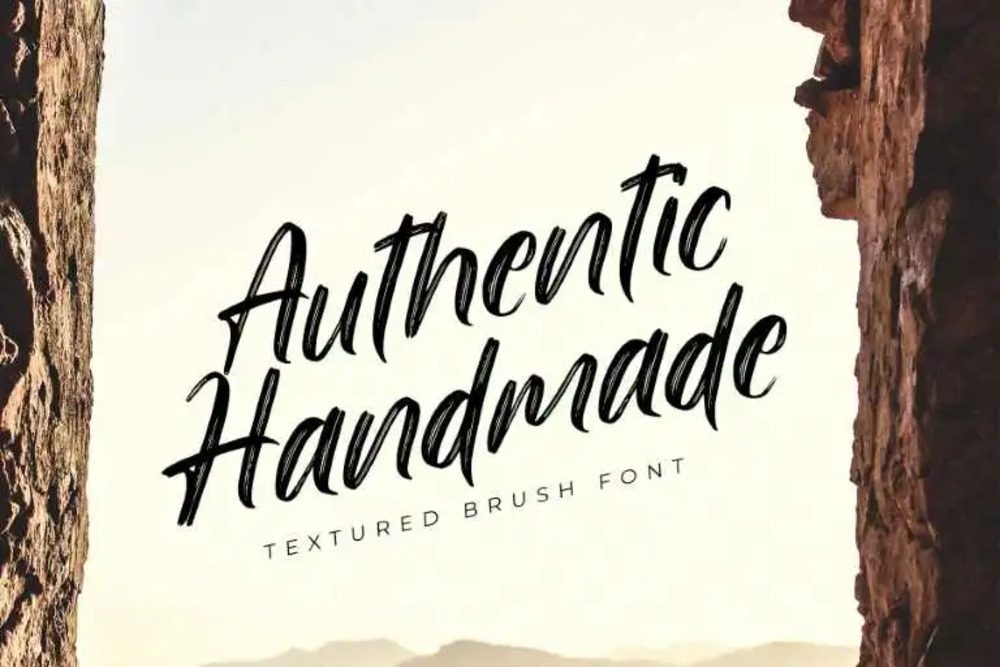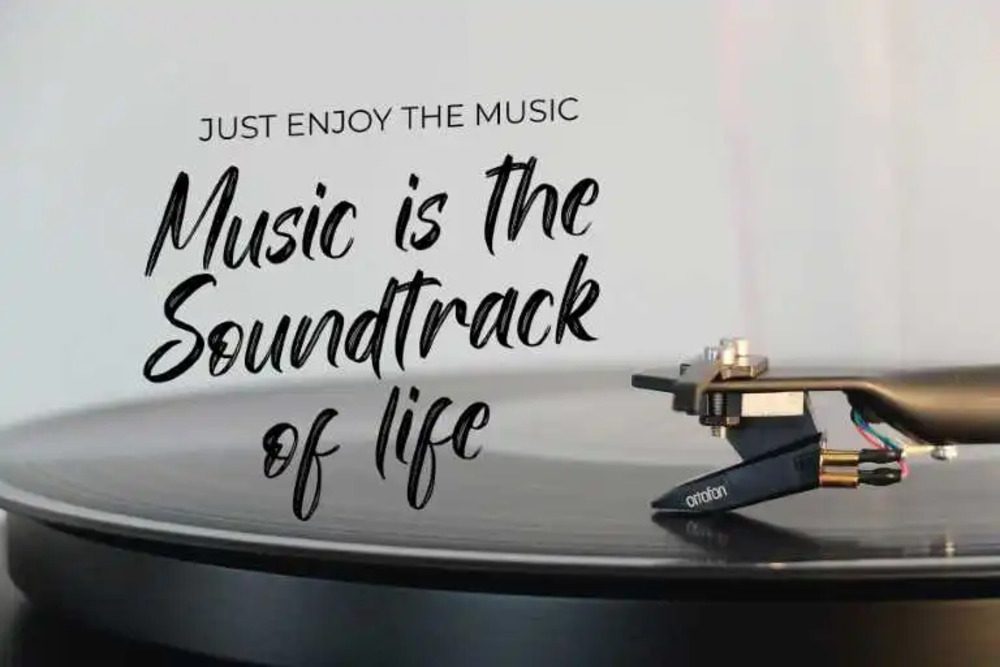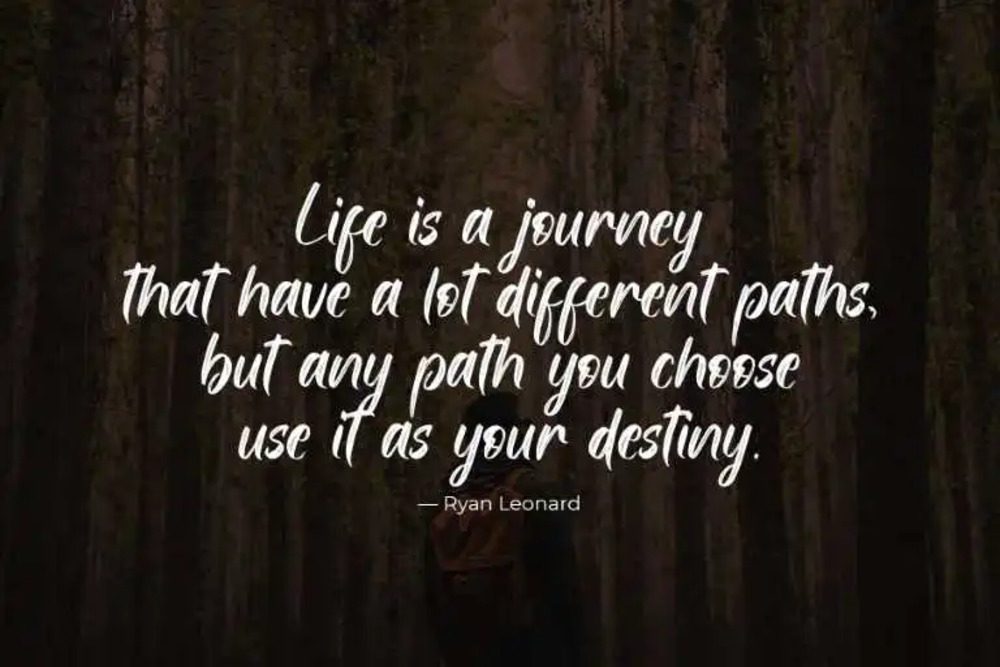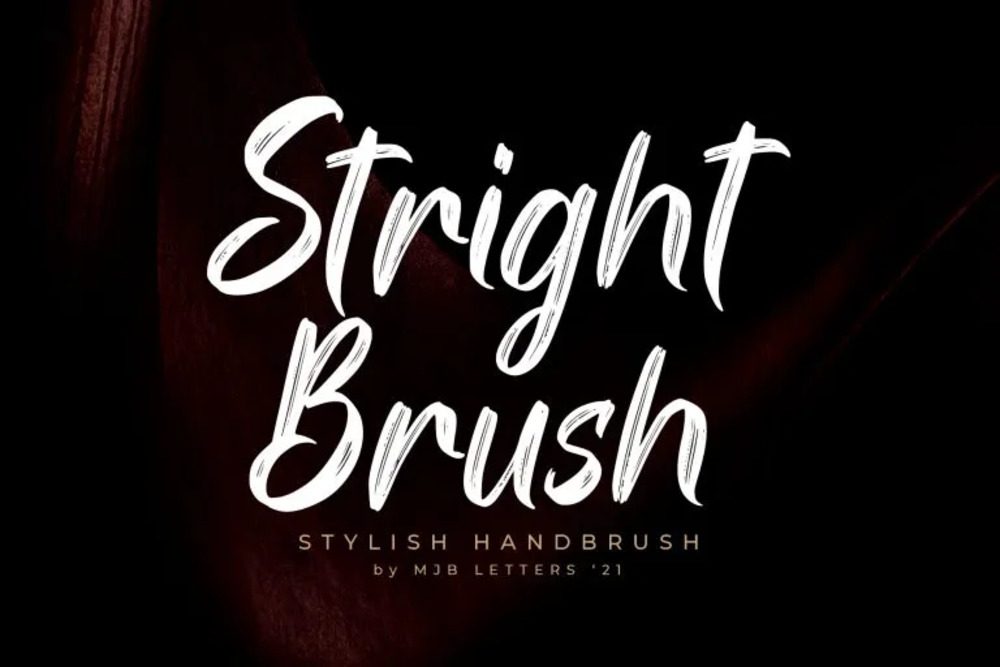
Stright Brush Font
Stright Brush is a dynamic and energetic handwritten font that brings a bold, artistic flair to your designs. With its natural brushstroke texture and irregular edges, it’s perfect for posters, logos, packaging, and creative branding. This font captures the essence of spontaneity and creativity, adding a raw, personal touch to every project. Stright Brush is ideal for designs that demand individuality.